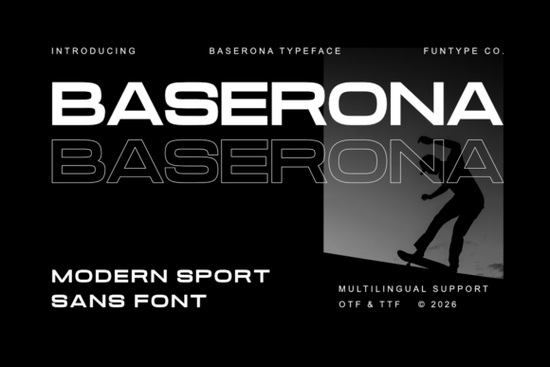
If you're looking for a bold, modern sans-serif font that makes a strong statement in sports branding, automotive design, or high-impact posters, Baserona Font is worth considering. It’s built for designers who need clean, powerful typography without sacrificing versatility. With its wide geometric structure and dynamic outline variant, it delivers confidence and precision perfect for headlines that demand attention.
What makes Baserona Font stand out?
Baserona isn’t just another bold font it’s designed with intention. Its blocky, balanced form gives your projects a professional edge, whether you’re working on a team logo, a digital ad, or merchandise like t-shirts and mugs. The font maintains clarity even at smaller sizes, which is important when you’re designing for print or screen.
The design blends modern minimalism with athletic energy. Think of it as the visual equivalent of a sprinter hitting the starting line focused, powerful, and ready to go. The geometric shapes are consistent across all weights, making it easy to pair with other elements while keeping your message sharp.
Why it works well for sports and branding
- Sports logos: Baserona’s boldness helps teams or athletes establish a strong identity.
- Automotive branding: Its structured look fits perfectly with performance vehicles and car culture.
- Digital posters & social media: High contrast and clear forms make it ideal for eye-catching visuals.
- Merchandise designs: Works great on apparel, stickers, and accessories where legibility matters.
It supports multiple languages, so if you’re creating content for international audiences, you won’t hit roadblocks. Whether you’re using it in Adobe Illustrator, Canva, or a custom print-on-demand workflow, Baserona adapts smoothly.
How to use Baserona effectively in your projects
One of the best ways to get the most from this font is to keep your design simple. Let the type do the talking avoid cluttering your layout with too many elements. Pair it with neutral backgrounds or subtle textures to highlight its strength.
For example, try using the regular weight for headlines and the outlined version for emphasis. This creates visual hierarchy without overwhelming the viewer. You can also experiment with color: black on white for maximum impact, or bold reds and blues for a sporty feel.
Final thoughts: Is Baserona right for your next project?
If you want a font that feels confident, modern, and built for impact without being overly flashy Baserona delivers. It’s not meant for body text, but as a headline or logo font, it shines. It’s especially useful for creatives who work with sports, automotive themes, or high-energy campaigns.